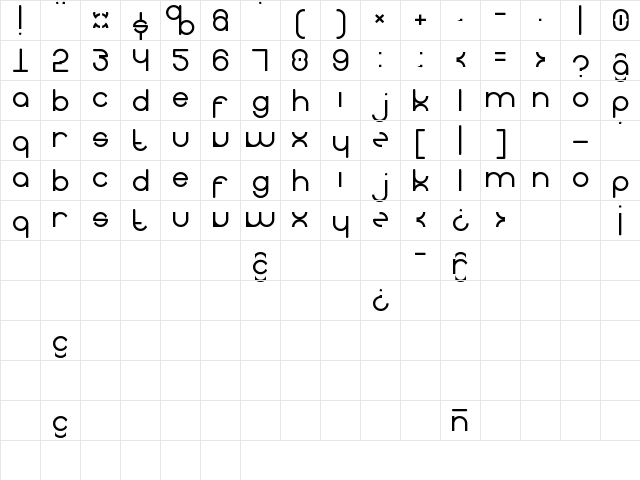
Dropping tears sans Regular
Complete Dropping tears sans Regular glyph index. Displaying only characters natively supported by Dropping tears sans Regular font.
Design Context for Dropping tears sans
Dropping tears sans is a composed and adaptable typeface that performs quietly and consistently across a wide range of design contexts.